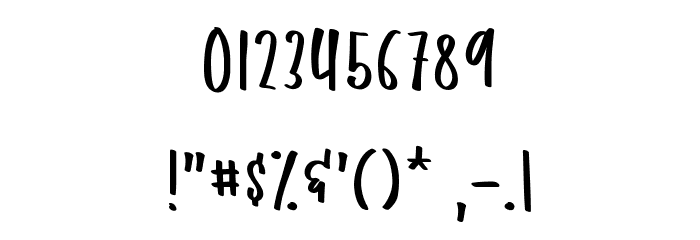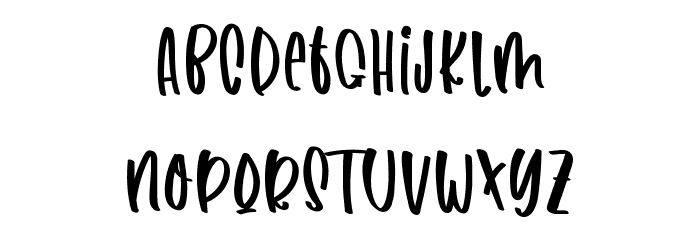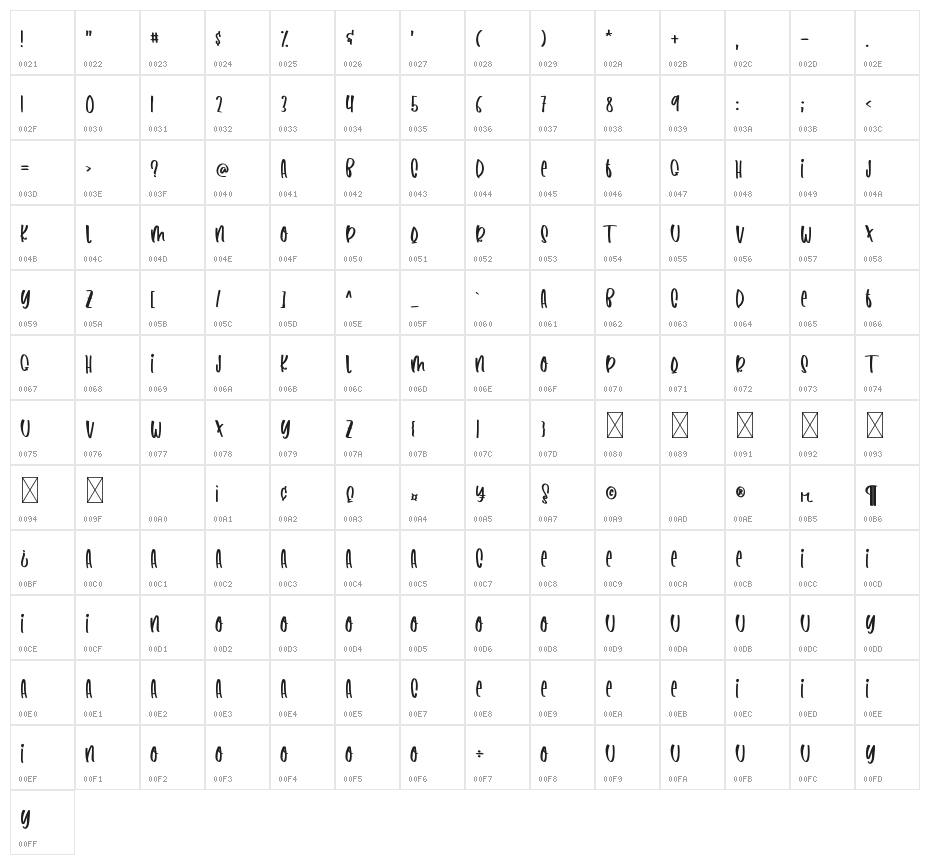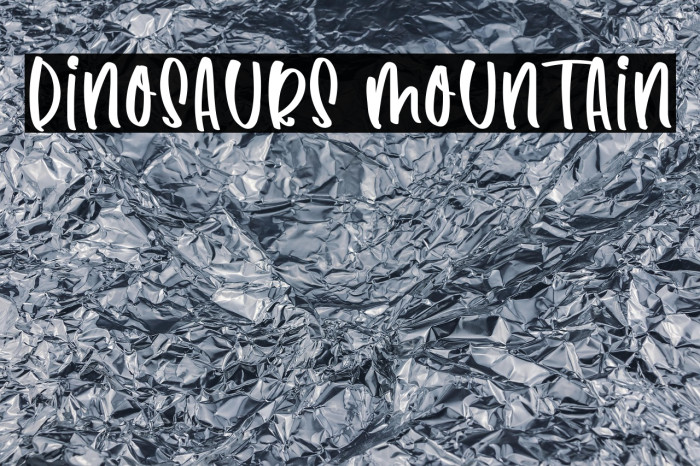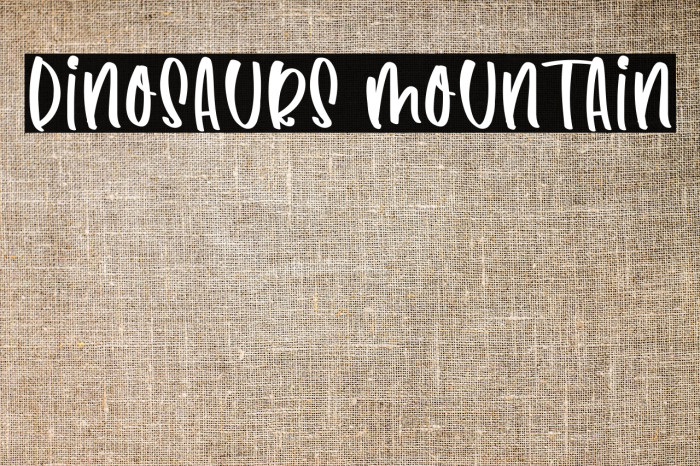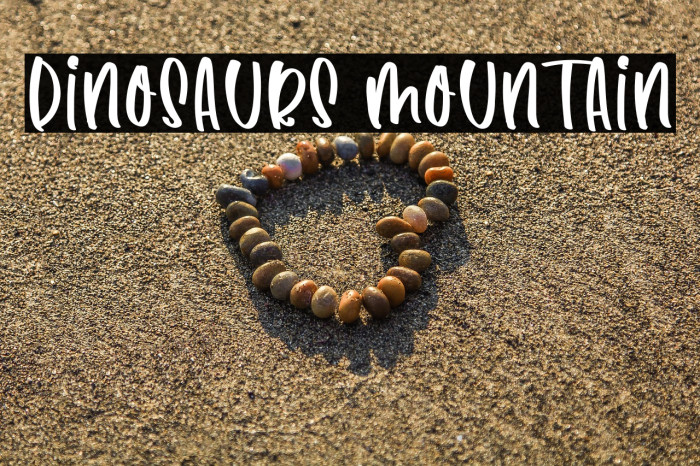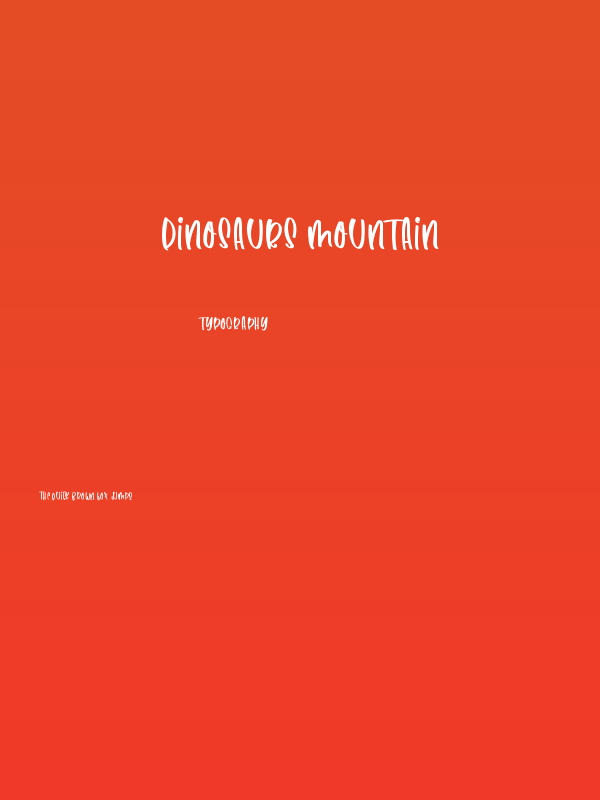
Dinosaurs Mountain Font
Dinosaurs Mountain Description
This font features a playful and whimsical handwritten style, characterized by its flowing curves and slightly irregular letterforms. The uppercase and lowercase letters maintain a consistent height, creating a harmonious appearance. The strokes are moderately thick, contributing to a bold and confident look. The numbers and special characters are crafted with the same playful aesthetic, ensuring a cohesive design throughout. This font exudes a friendly and approachable vibe, making it suitable for creative and informal projects.
| Proposed Projects | Ideal for greeting cards, children's books, playful branding, and social media graphics. |